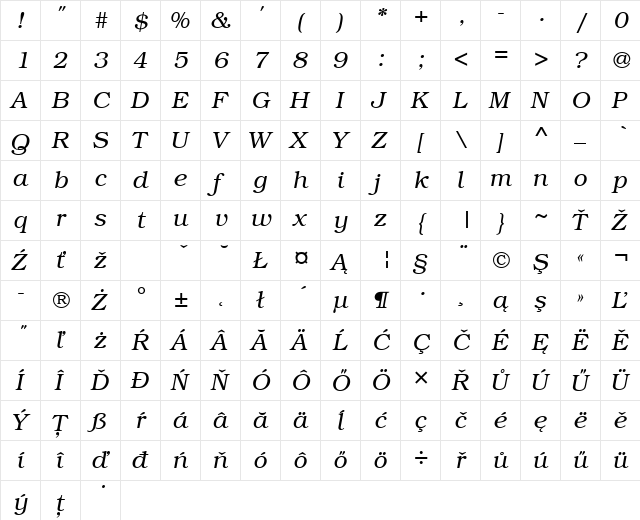
BookmanItcLEE Italic
Design Context for BookmanItcLEE Typeface
BookmanItcLEE is a composed and adaptable typeface that performs quietly and consistently across a wide range of design contexts. The dynamic lean of this cut emphasises speed and emphasis in any layout.